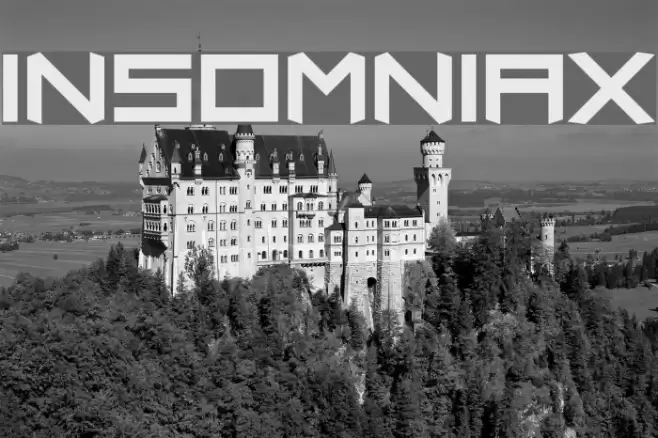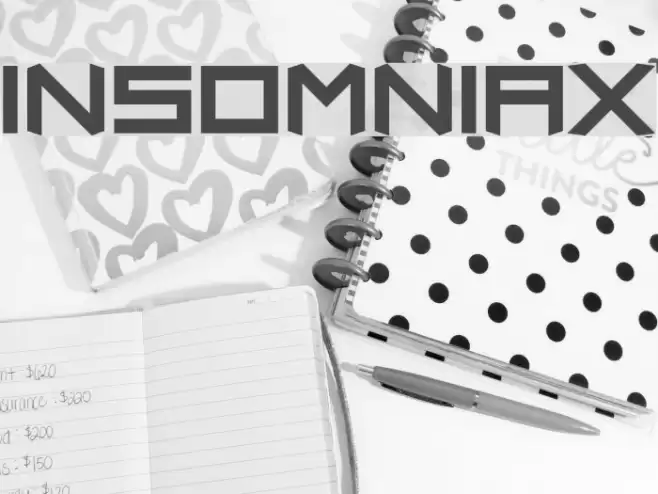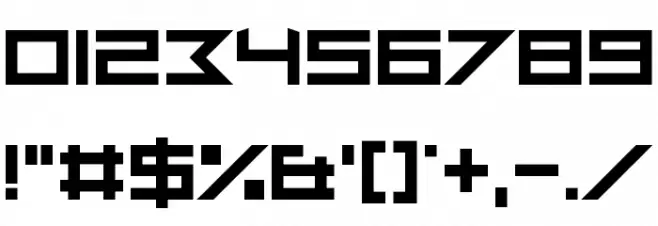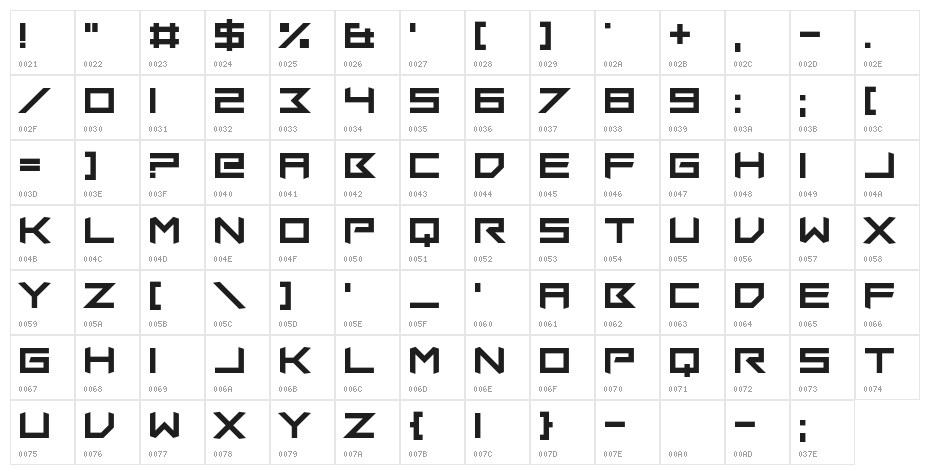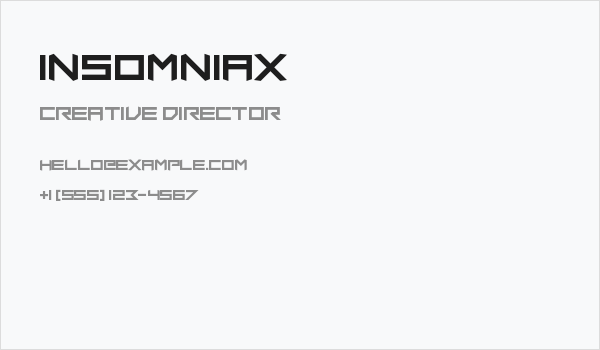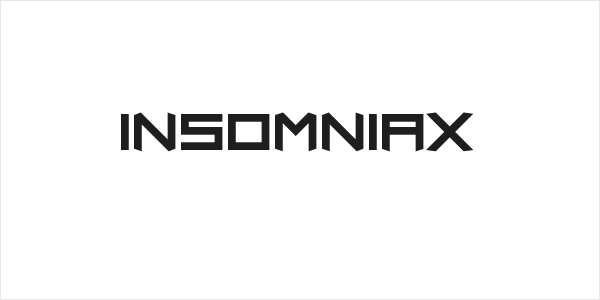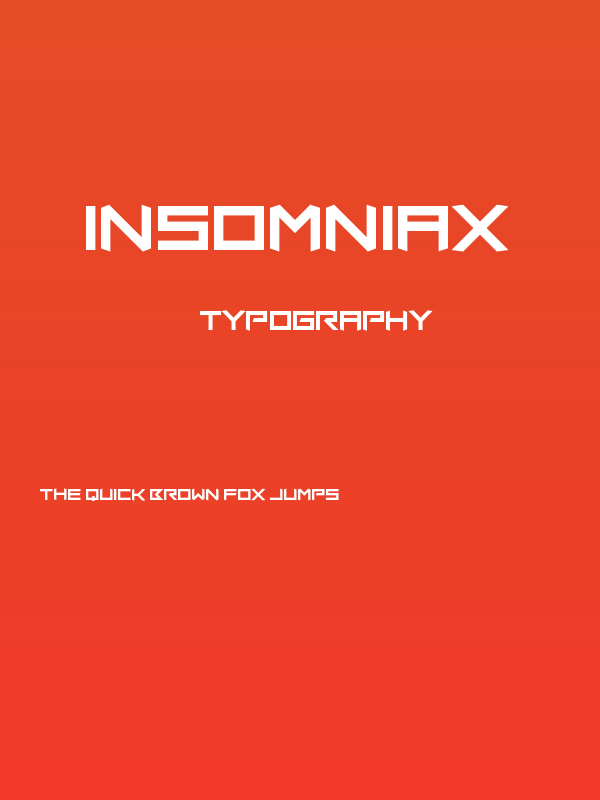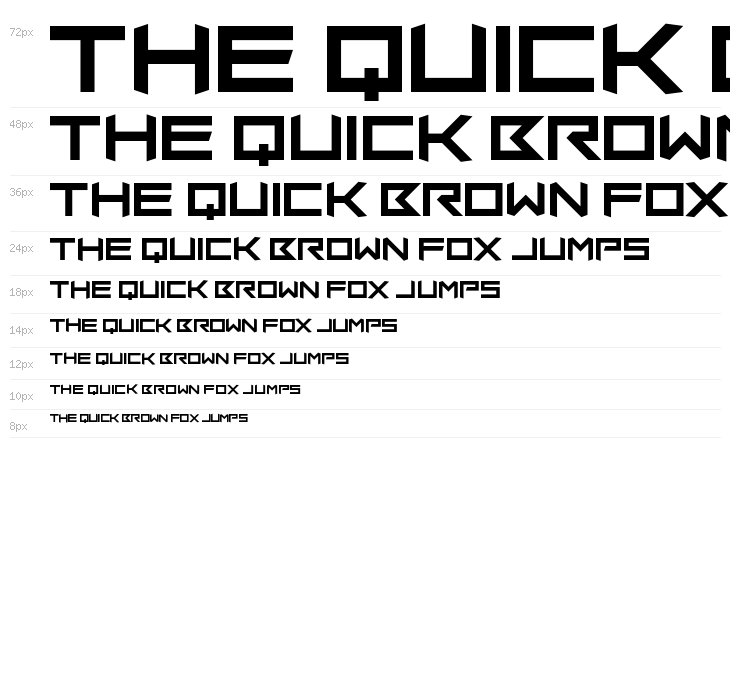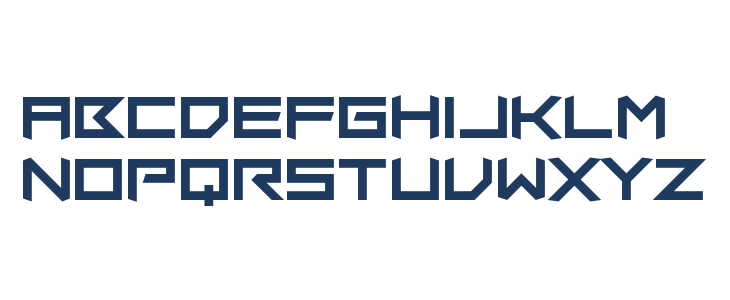
Insomniax Font
Insomniax Description
This font features a bold, geometric design with sharp angles and a futuristic aesthetic. The uppercase letters are uniform in height, creating a cohesive and structured appearance. The characters are constructed with straight lines and angular cuts, giving them a modern and edgy feel. The numerals and special characters follow the same design principles, ensuring consistency across all glyphs. The font's unique style makes it stand out, making it suitable for projects that require a strong visual impact.
A bold, geometric font with a futuristic and edgy design from Uncategorized fonts.
- Proposed Projects: Ideal for sci-fi themed projects, video game titles, technology branding, and modern poster designs.
- Overall Style: Futuristic